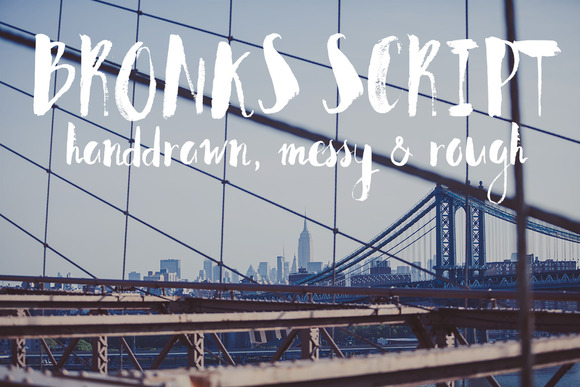
The Unbridled Charm of Bronks Script Font
I’ll never forget the design project that led me to discover Bronks Script Font. I was working on a title sequence for a indie film, and I needed a font that would capture the raw, emotional essence of the story. After hours of scouring font libraries and online marketplaces, I stumbled upon Bronks – a bold, messy type that seemed to leap off the page with its strong personality.
A First Impression: Love at First Sight
At first glance, Bronks Script Font is a bold and eye-catching typeface that exudes confidence and creativity. Its rough edges and imperfect lines give it an organic, hand-painted look that’s perfect for titles, headings, and anywhere you want to make a statement.
What I Love About Bronks ✨
- ✅ Unique, hand-painted aesthetic that’s perfect for creative projects
- ✅ Bold and attention-grabbing, without being too overpowering
- ✅ Works well with a variety of design styles, from rustic to modern
- ✅ Easy to read, even in larger blocks of text
- ⚠️ May not be suitable for very small text sizes or body copy
- ⚠️ Some users may find the rough edges and imperfections too distressed for their taste
The Story Behind Bronks
Bronks Script Font was created by drawing on textured paper with a brush and ink – a labor of love that gives the font its unique, hand-painted aesthetic. The designer behind Bronks was inspired by the raw, emotional power of handwritten text and sought to capture that essence in a digital font.
| Font Name | Bronks Script Font |
| Author | Favete Art |
Q: What is Bronks Script Font best used for?
A: Bronks is perfect for titles, headings, and anywhere you want to make a bold statement. Its unique aesthetic works well with a variety of design styles, from rustic to modern.
Q: Is Bronks suitable for body copy?
A: While Bronks is easy to read, it’s not ideal for large blocks of body copy. It’s best used for headings and titles, where its bold personality can shine.
Q: Does Bronks support OpenType features?
A: Yes, Bronks supports OpenType features like stylistic alternates and glyphs, which can be accessed in compatible design apps like Canva and Adobe Photoshop/Illustrator.